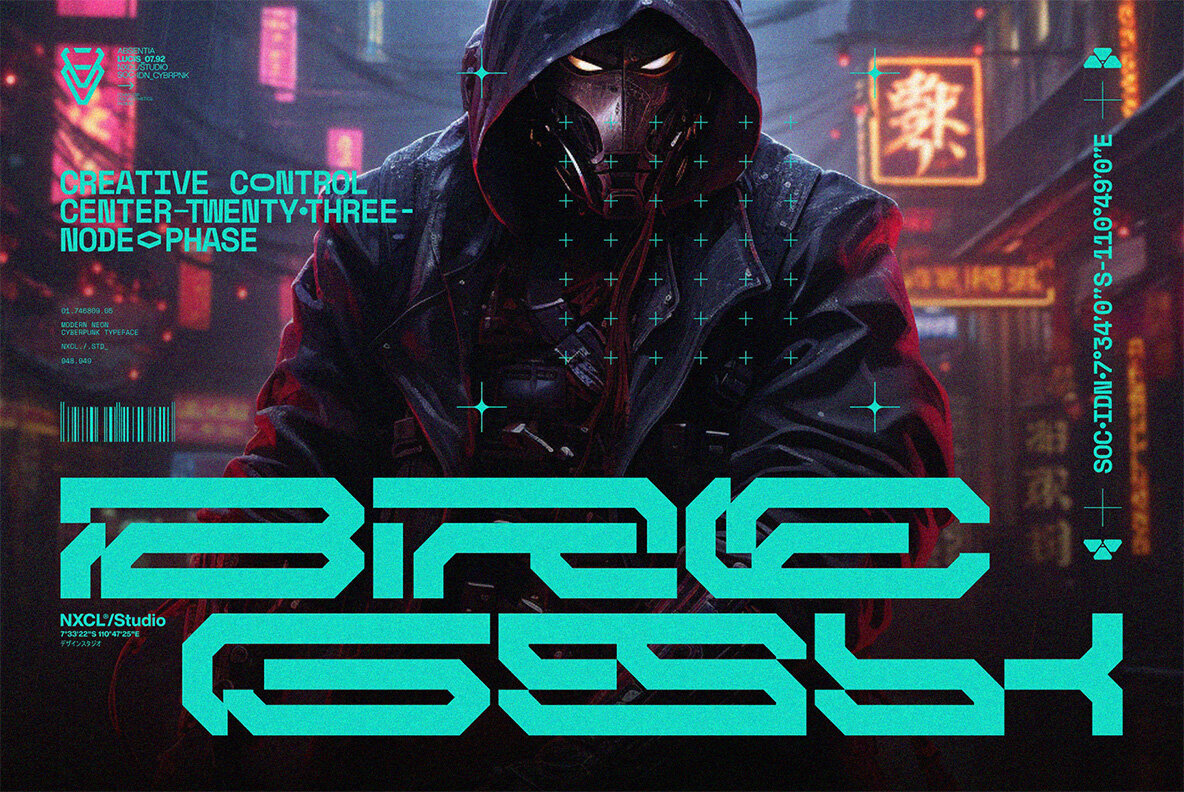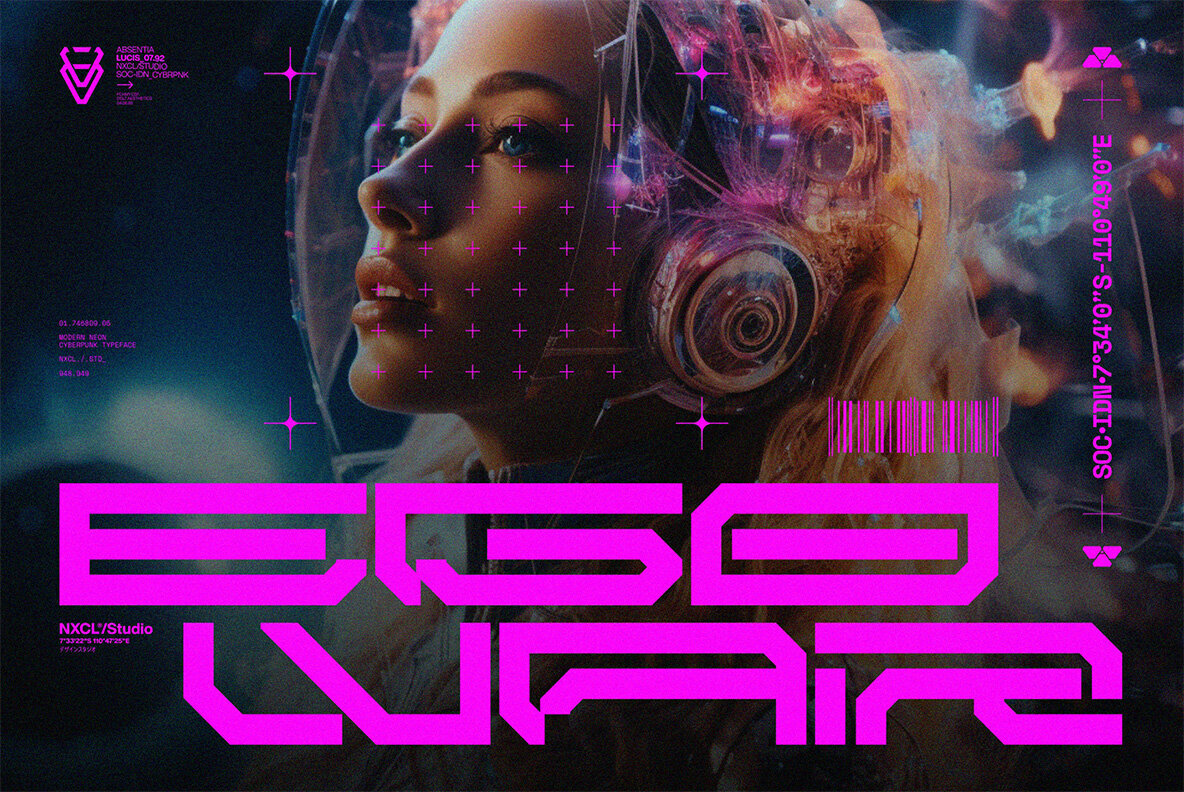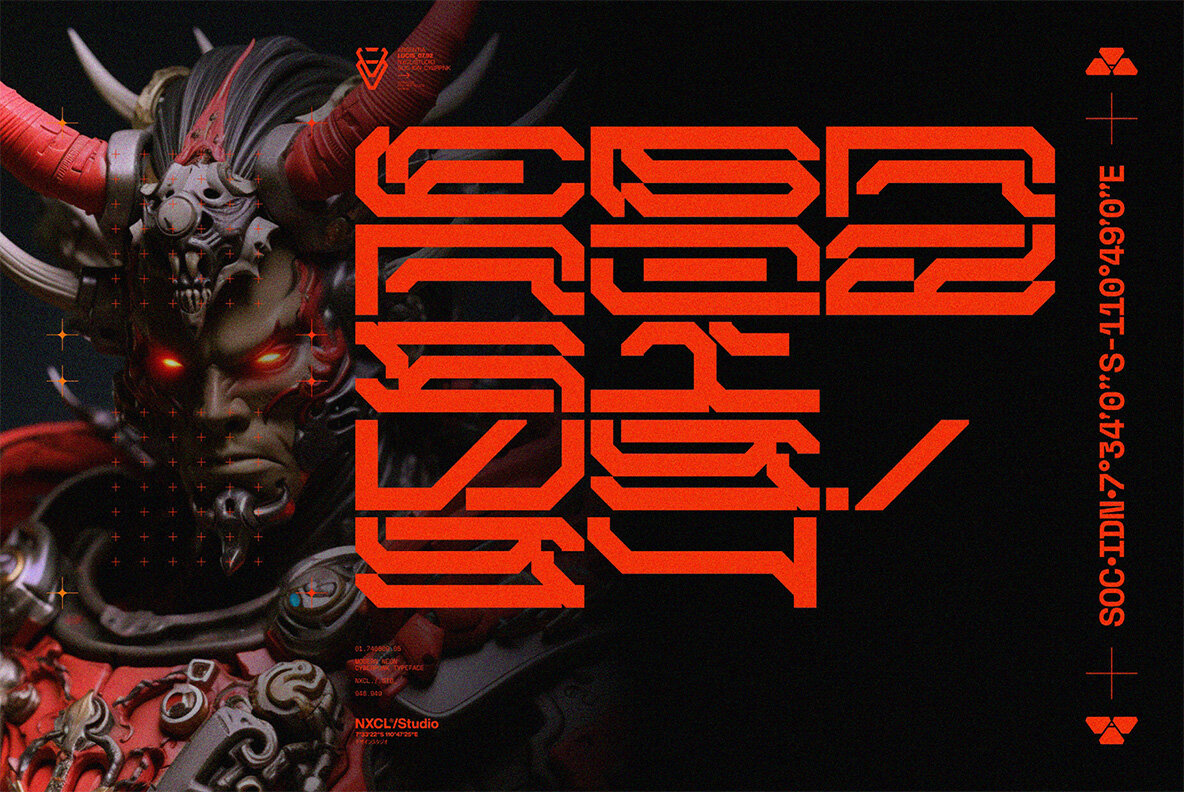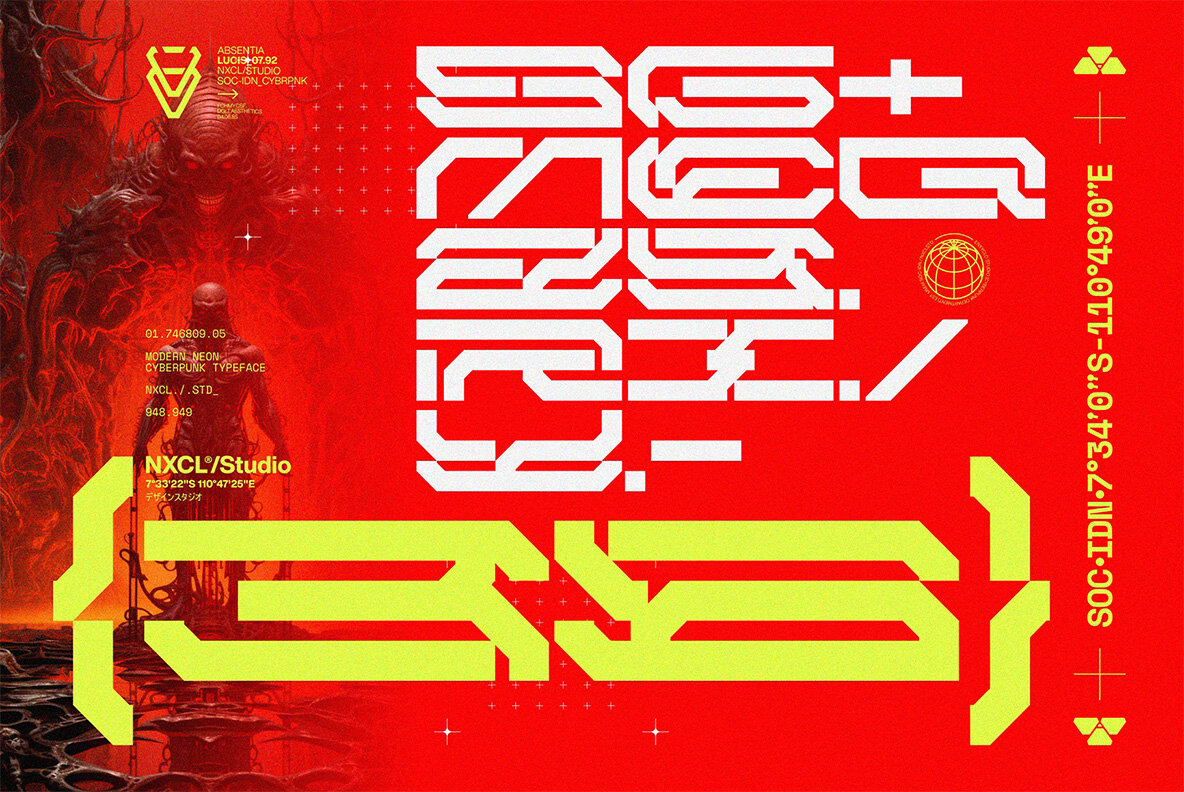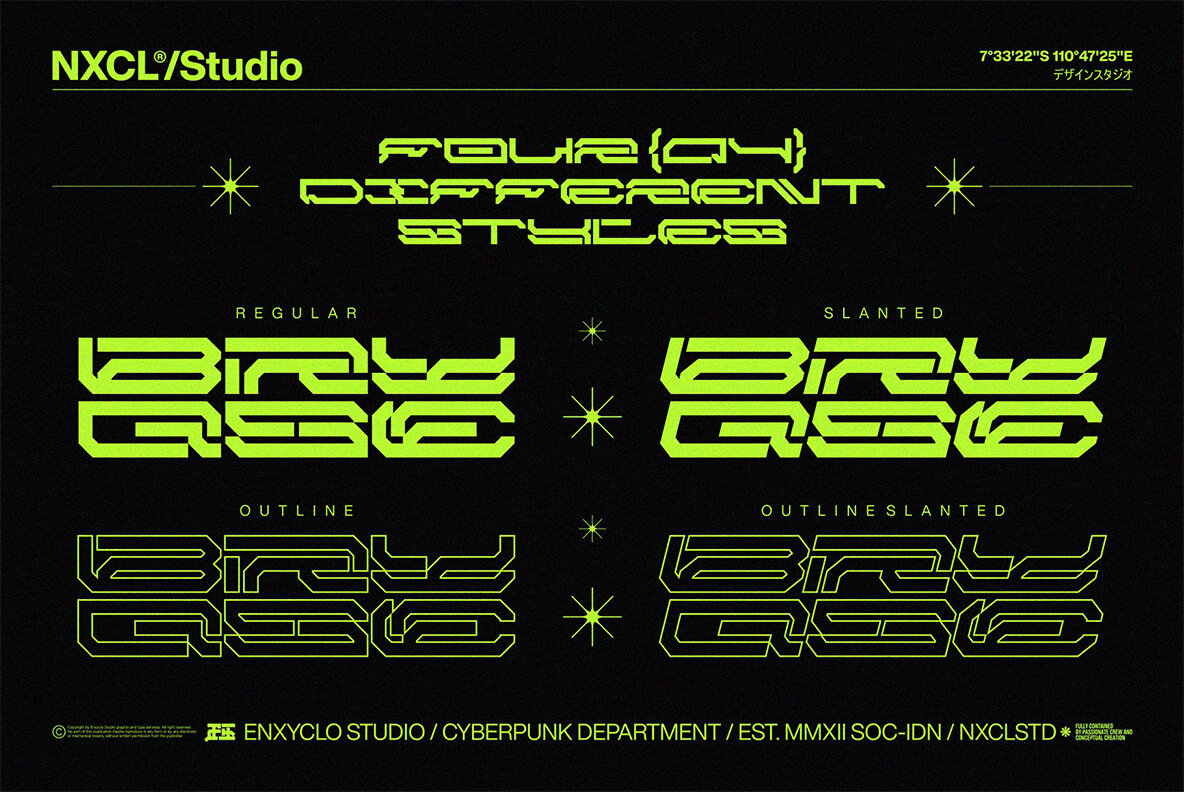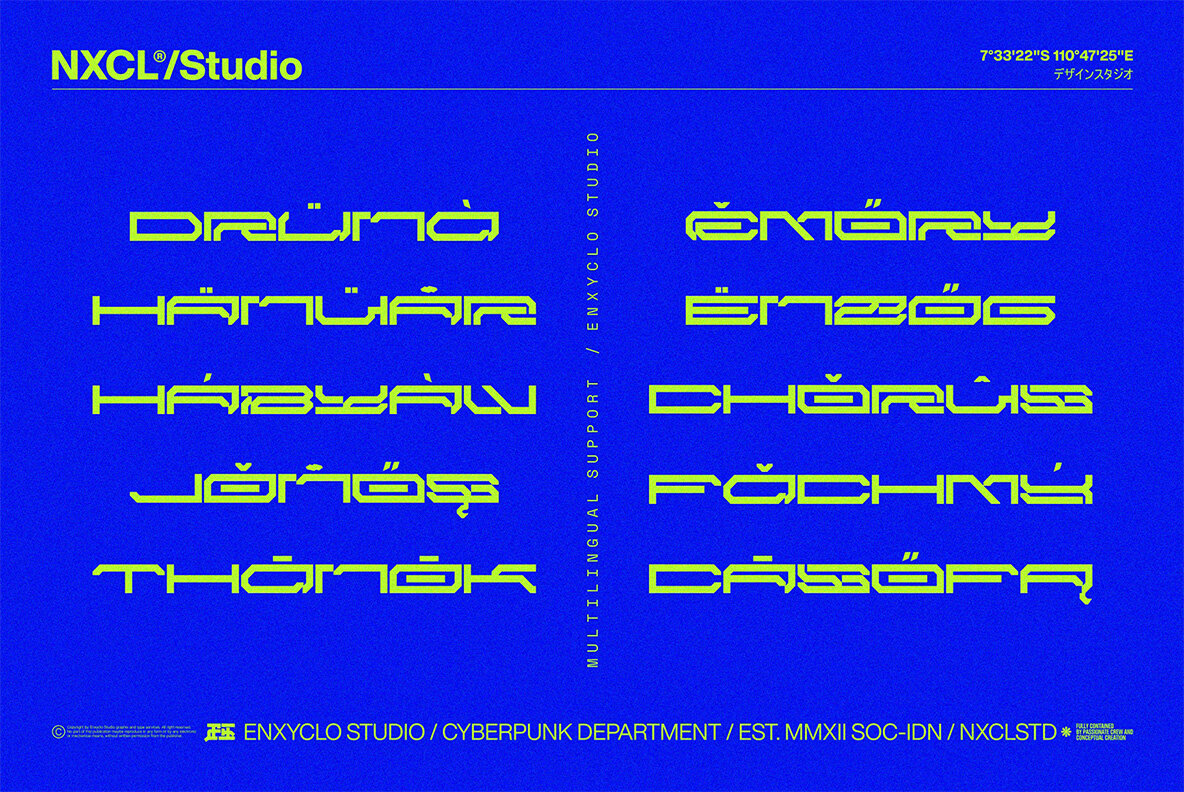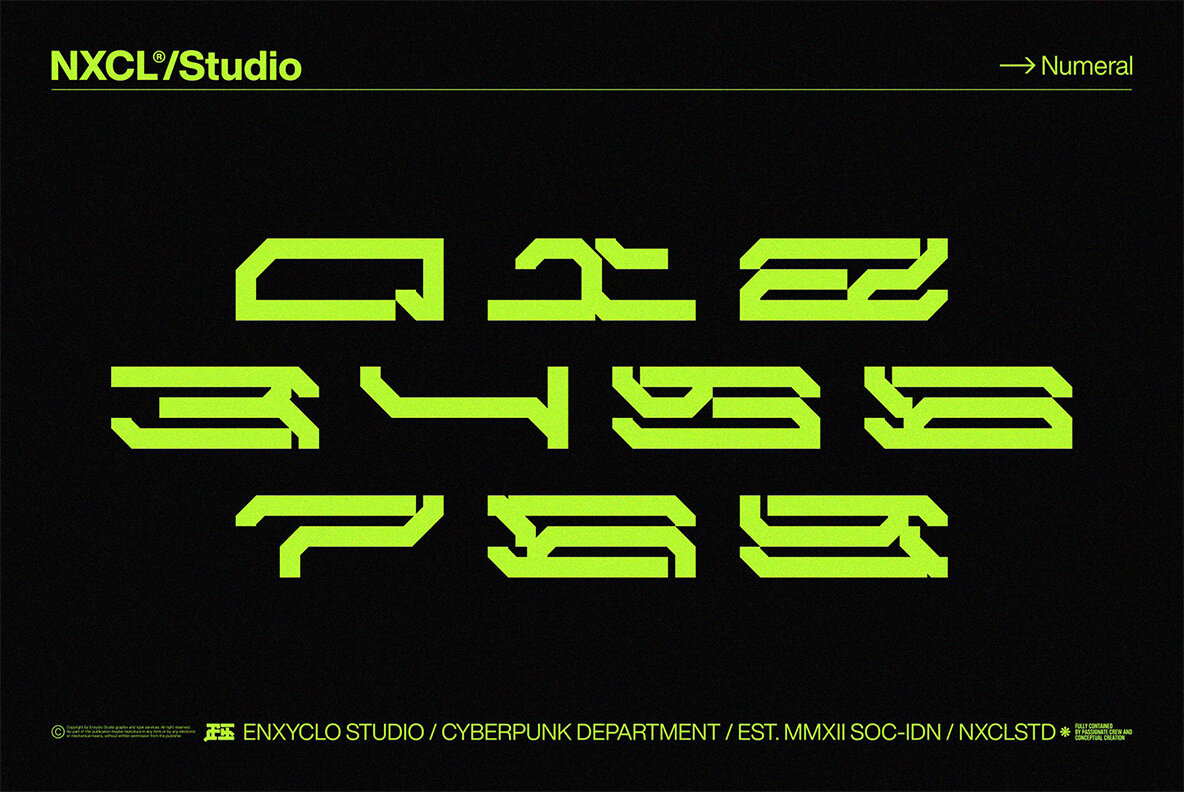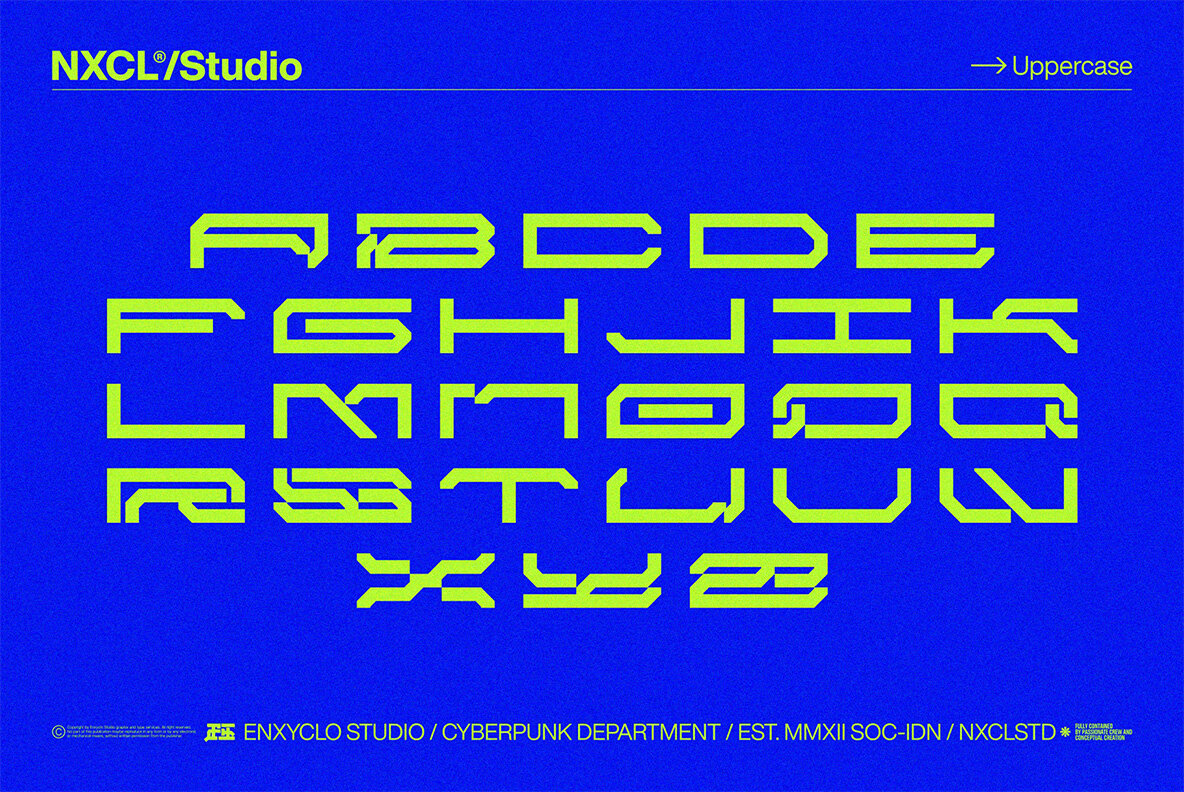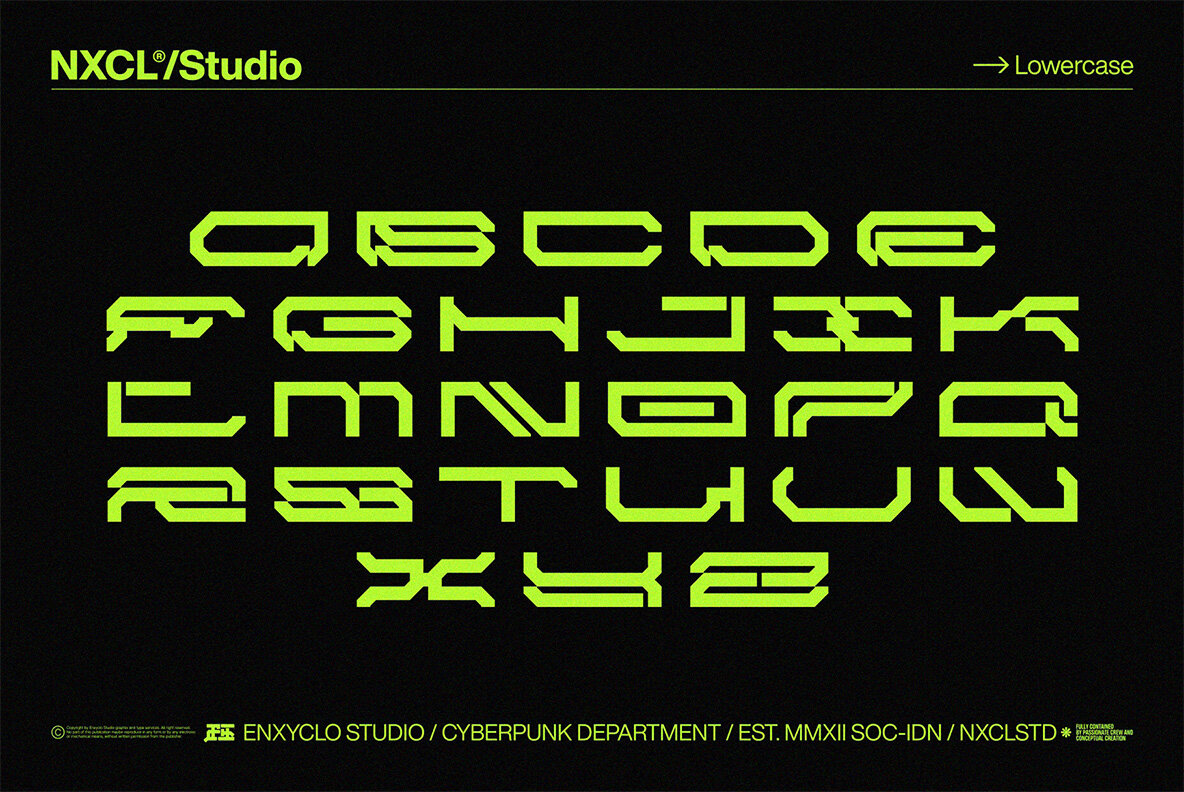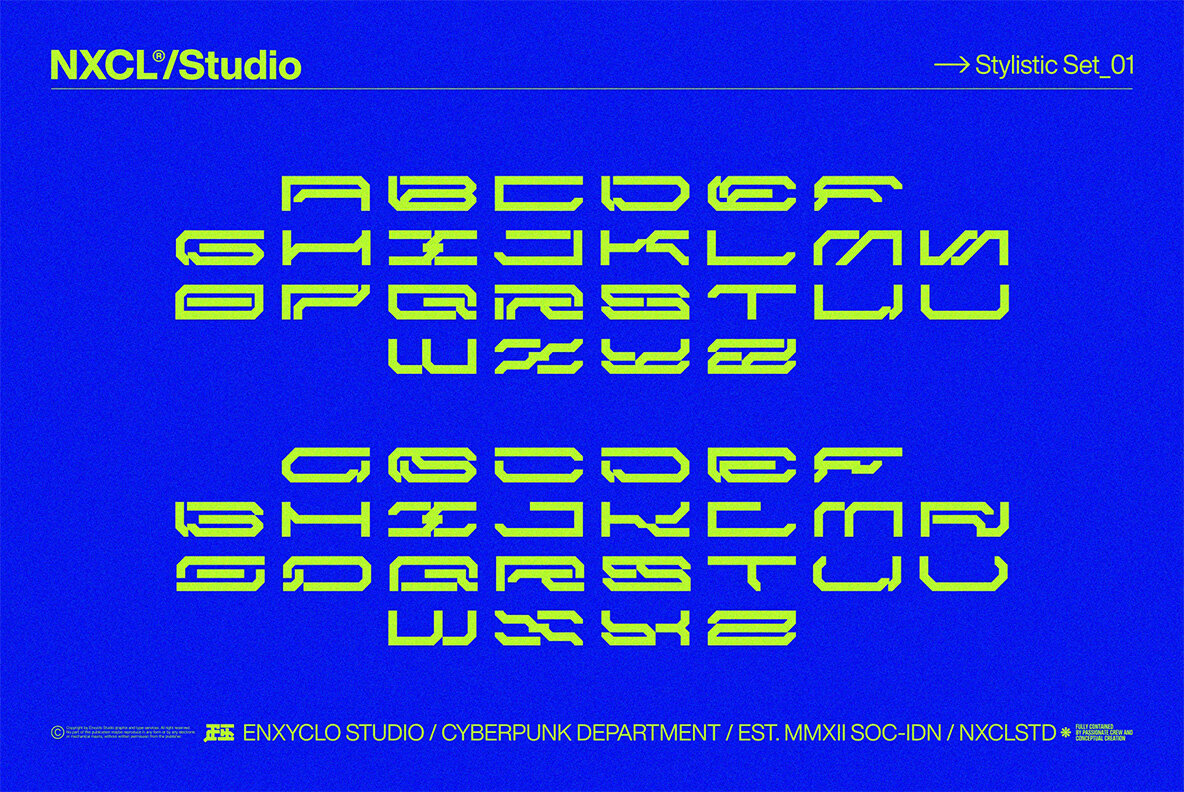
NCL Brayqose Expanded Font
NCL Brayqose Expanded is not your ordinary font. It’s a modern cyberpunk futuristic techno mecha expanded font that takes your creativity to the next level. Its futuristic aesthetics bring a whole new dimension to your designs, making them stand out. Whether you’re working on a website, poster, logo, or any other project, this font adds that extra touch of innovation and sophistication. Features: 4 Style: Regular, Slanted, Outline, Outline Slanted Contains 437 Glyphs for Each Style and 1748 Glyphs for Total Uppercase & Lowercase Numeral, Punctuation & Symbols Stylistic Set 1-2 Multilingual Support